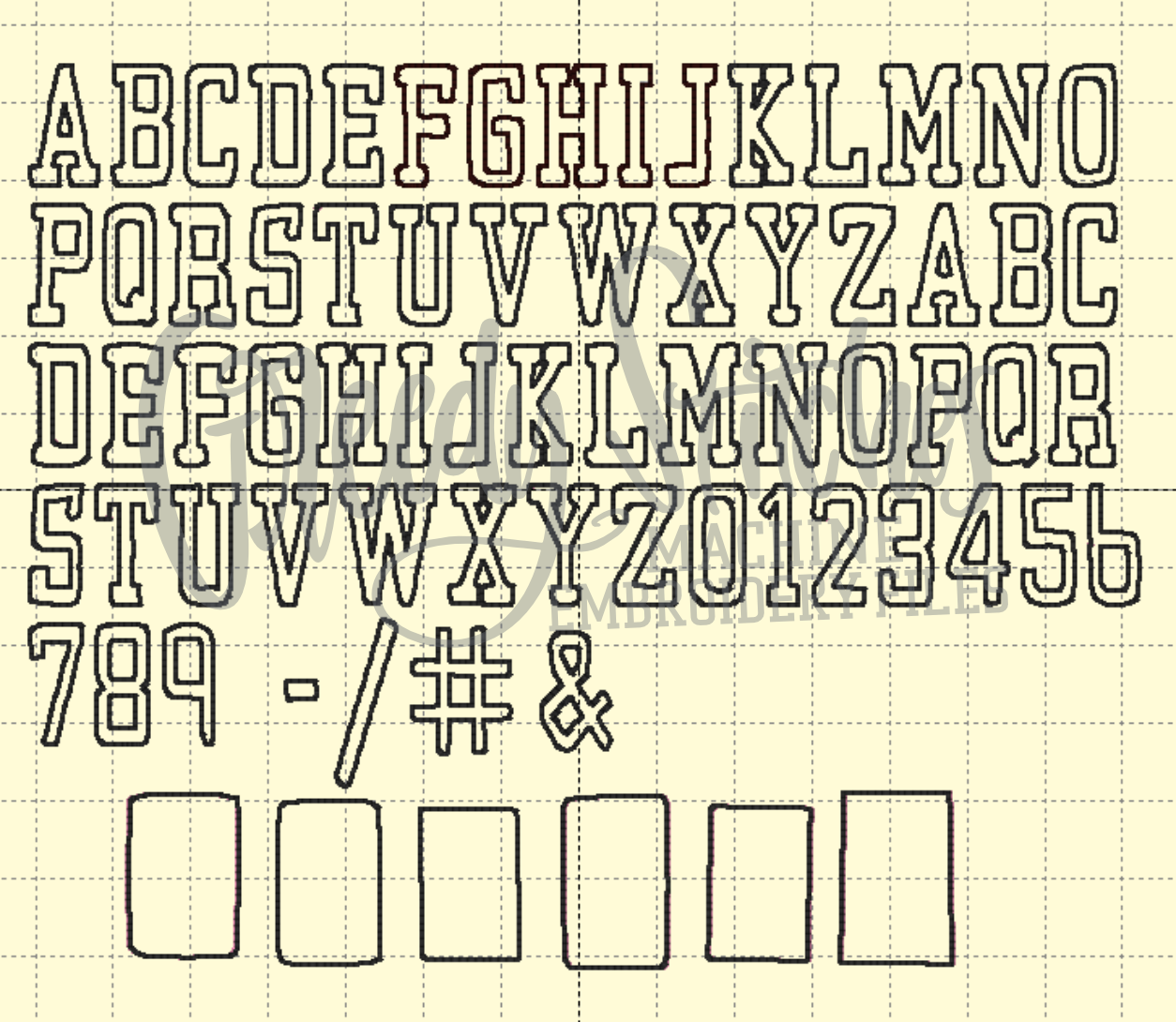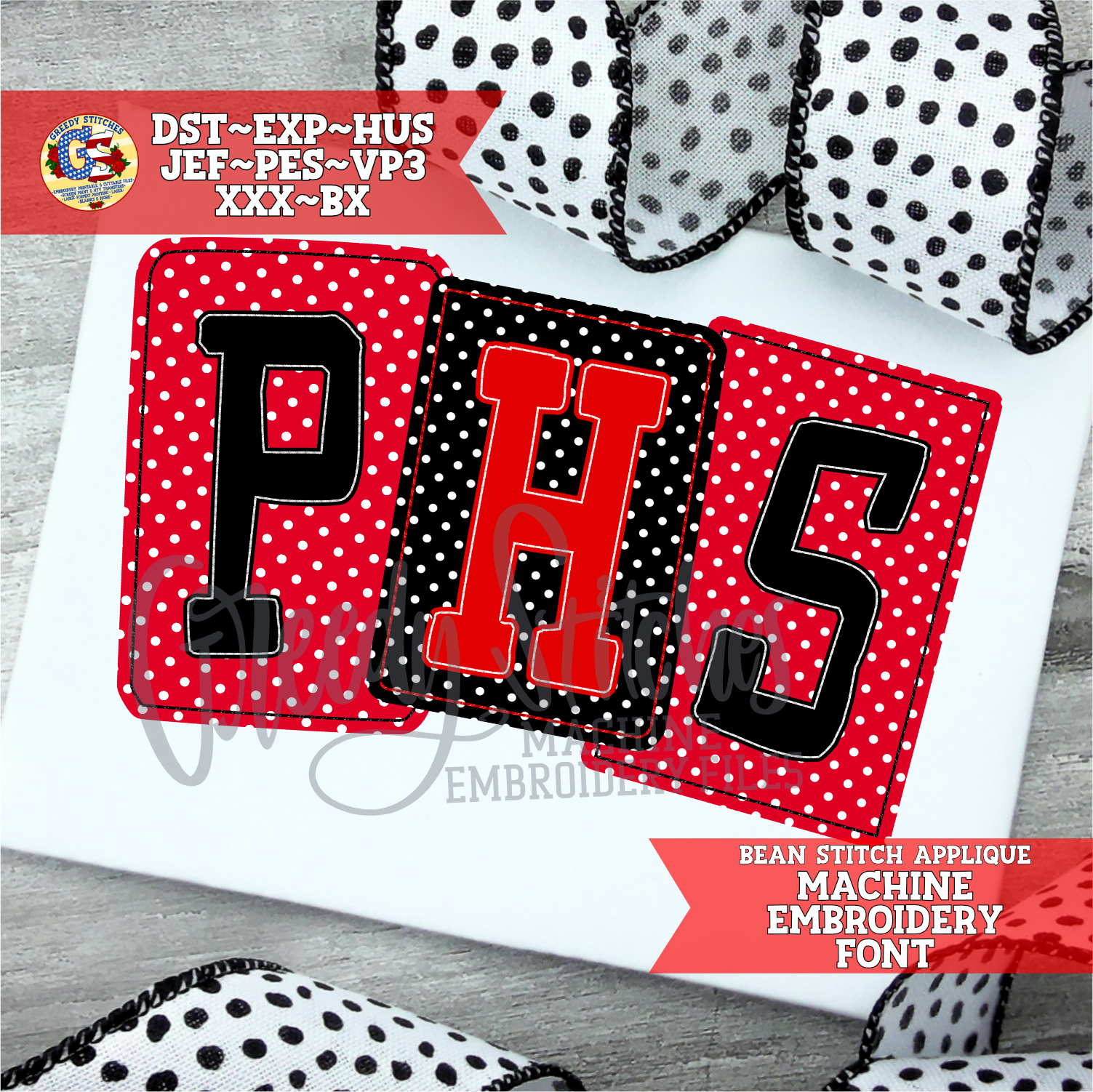
Smells Like Team Spirit Bean Stitch Embroidery Applique Font
This is a very rough font. That's the way it's supposed to be. I designed it to to be kind of like an eroded/distressed/rough edged font you'd see in .otf or .ttf. It's an all upper case font. There are 6 boxes to frame the characters.